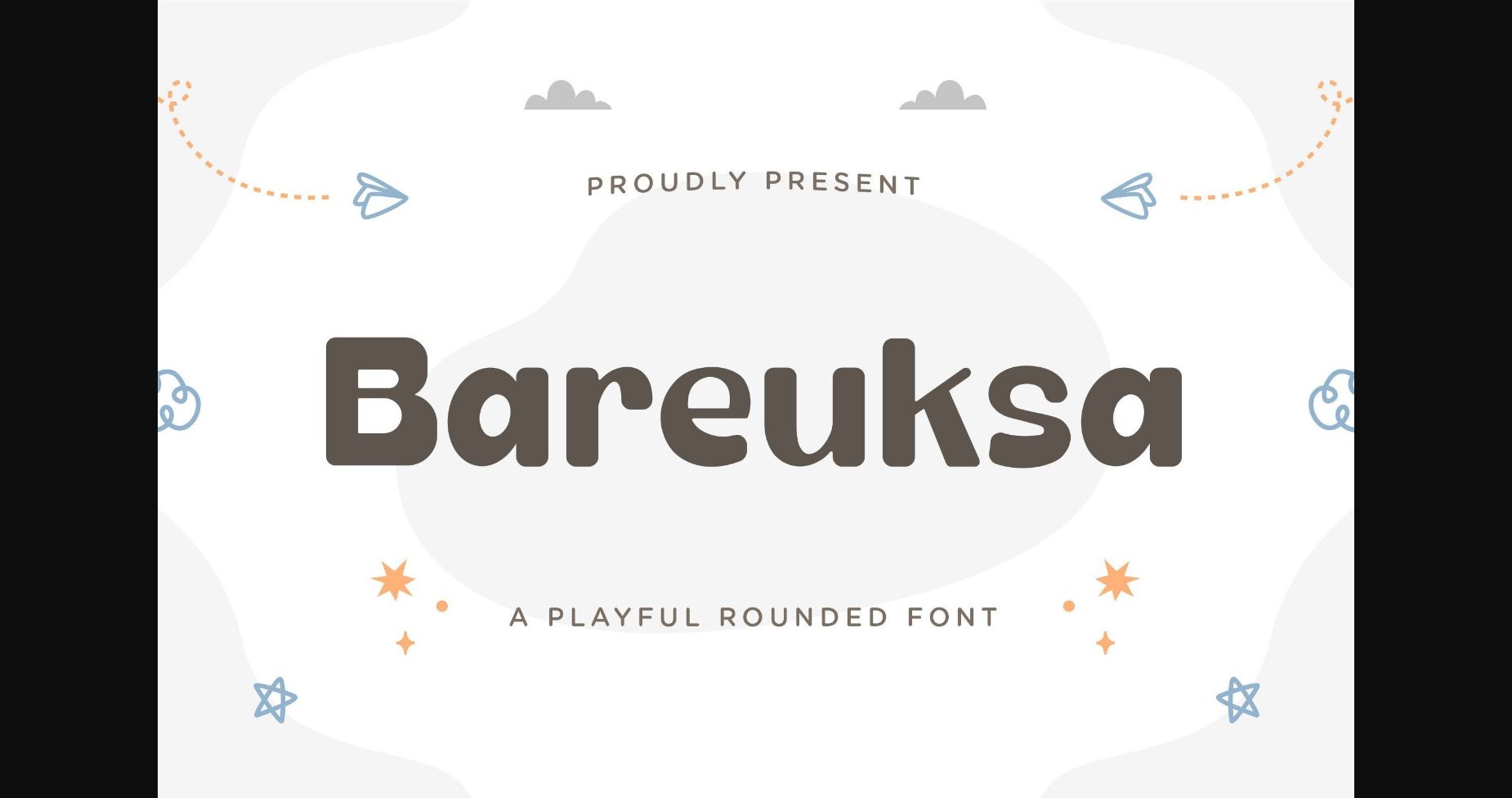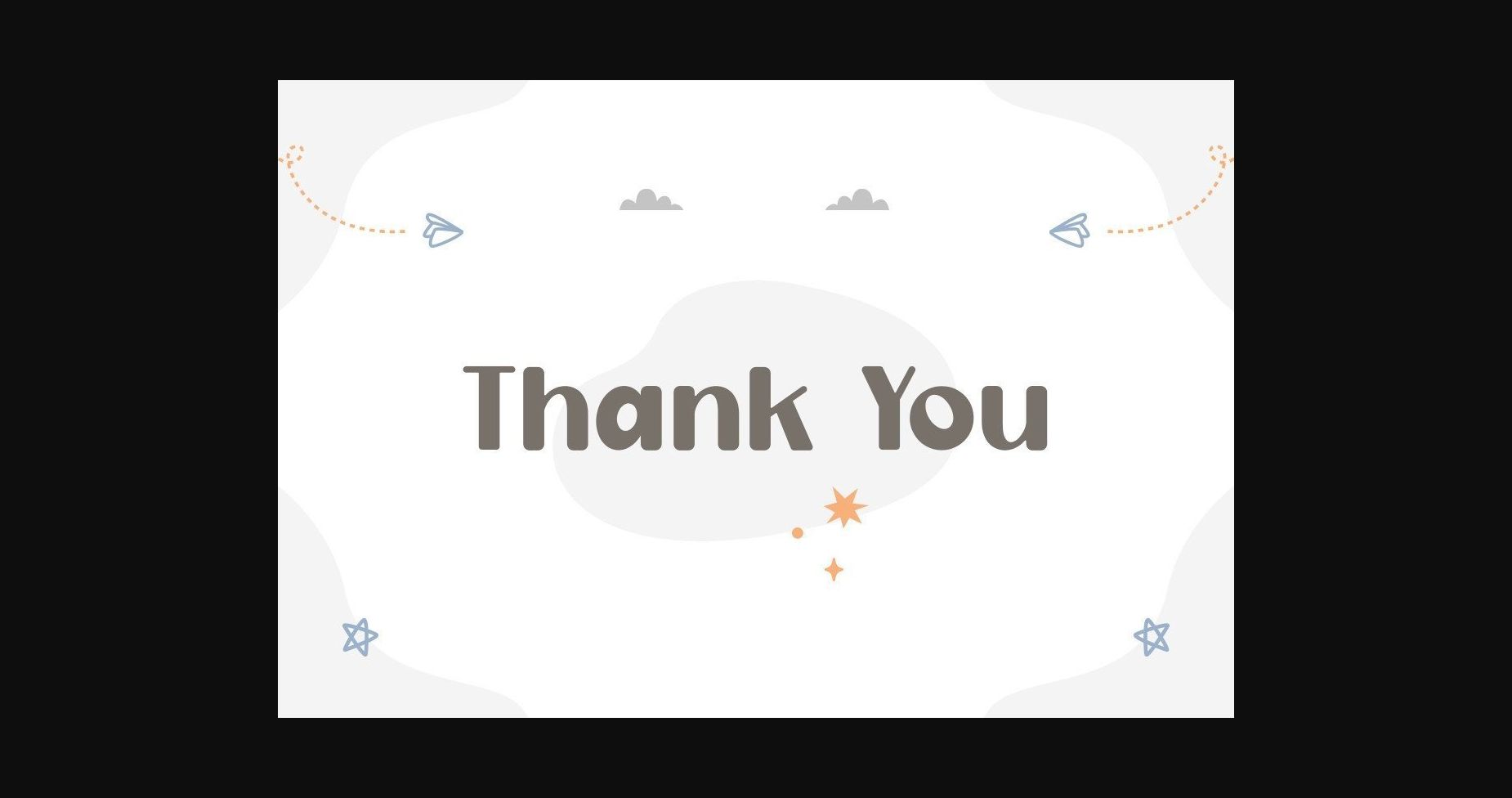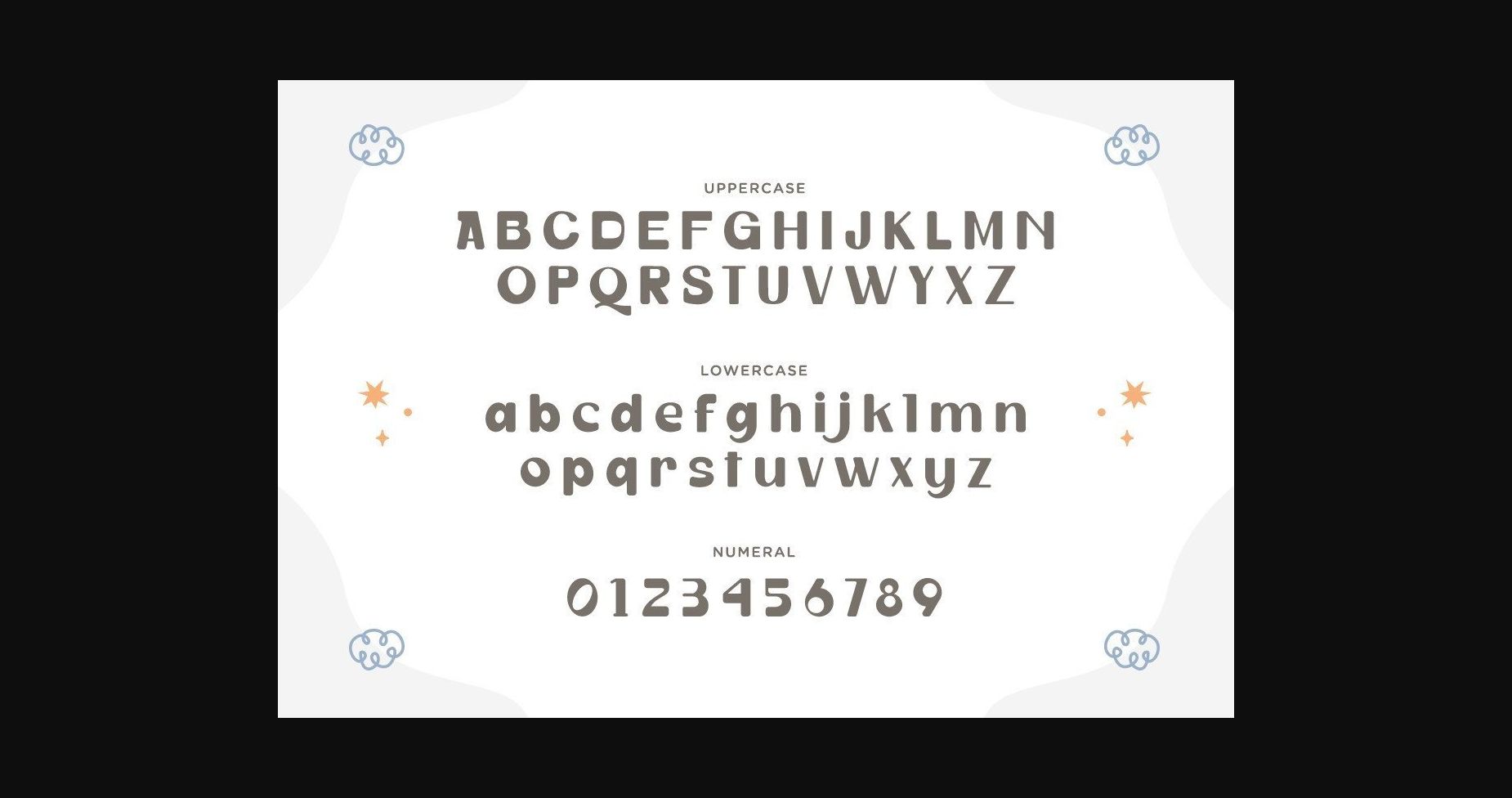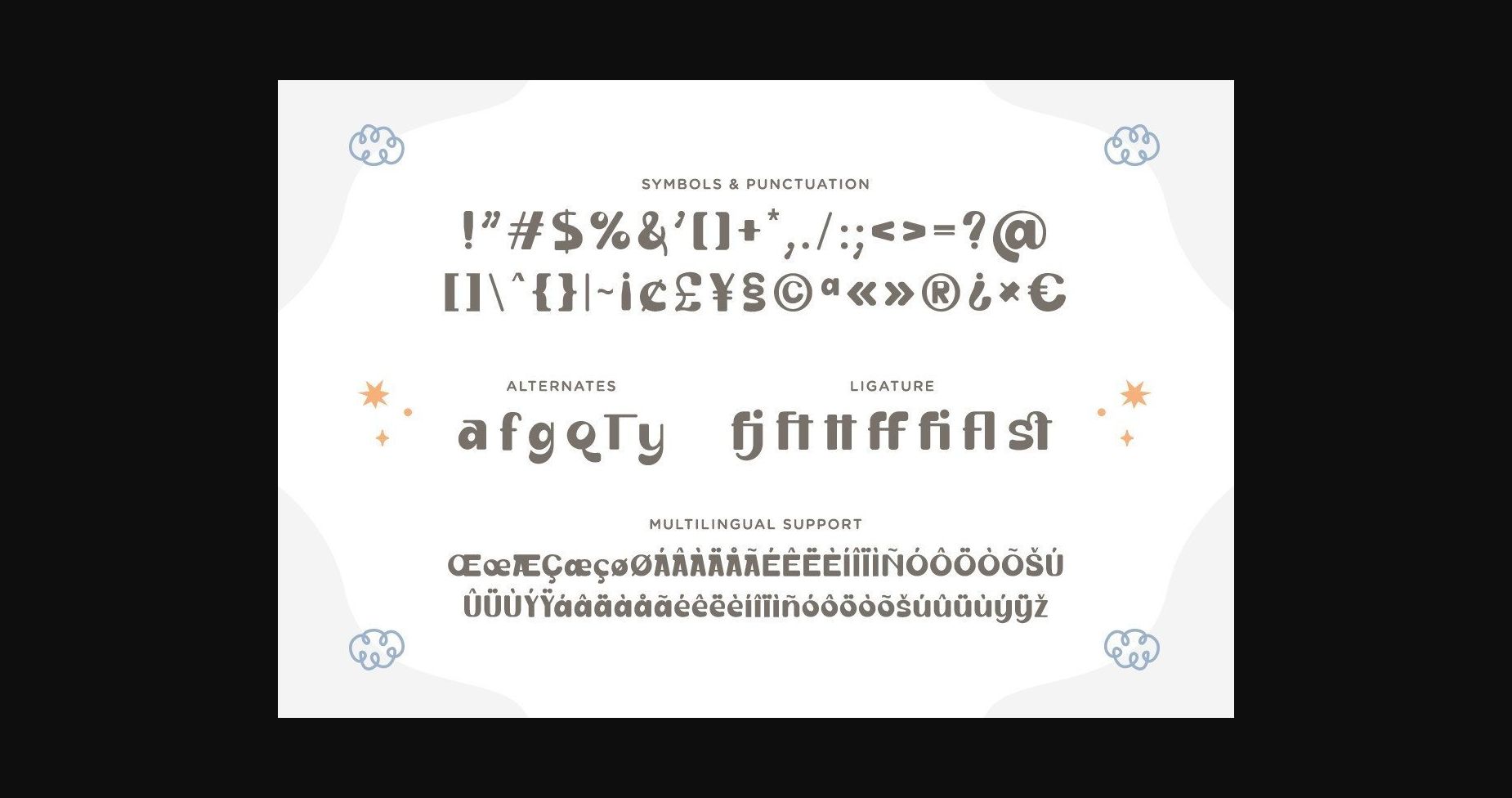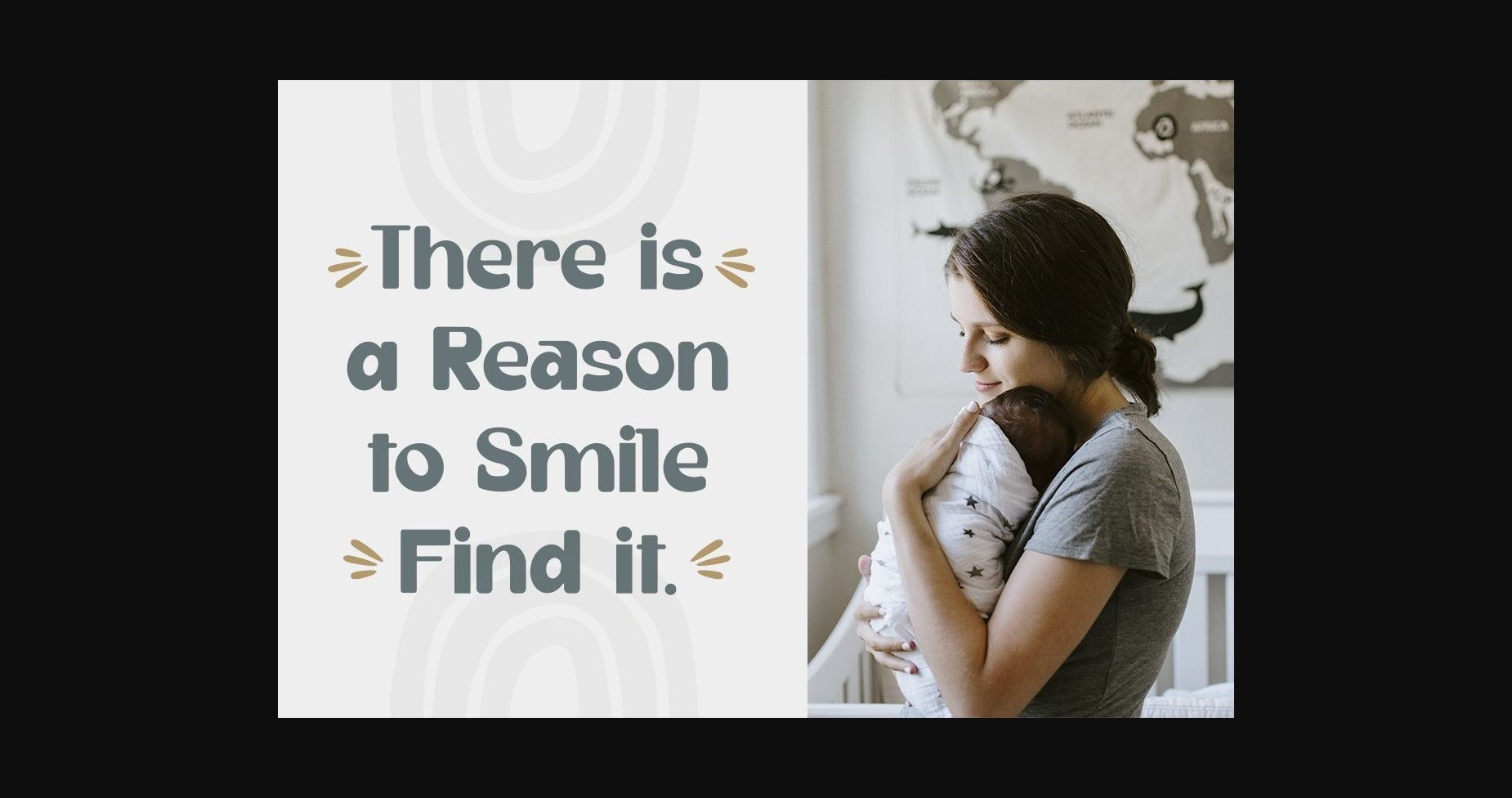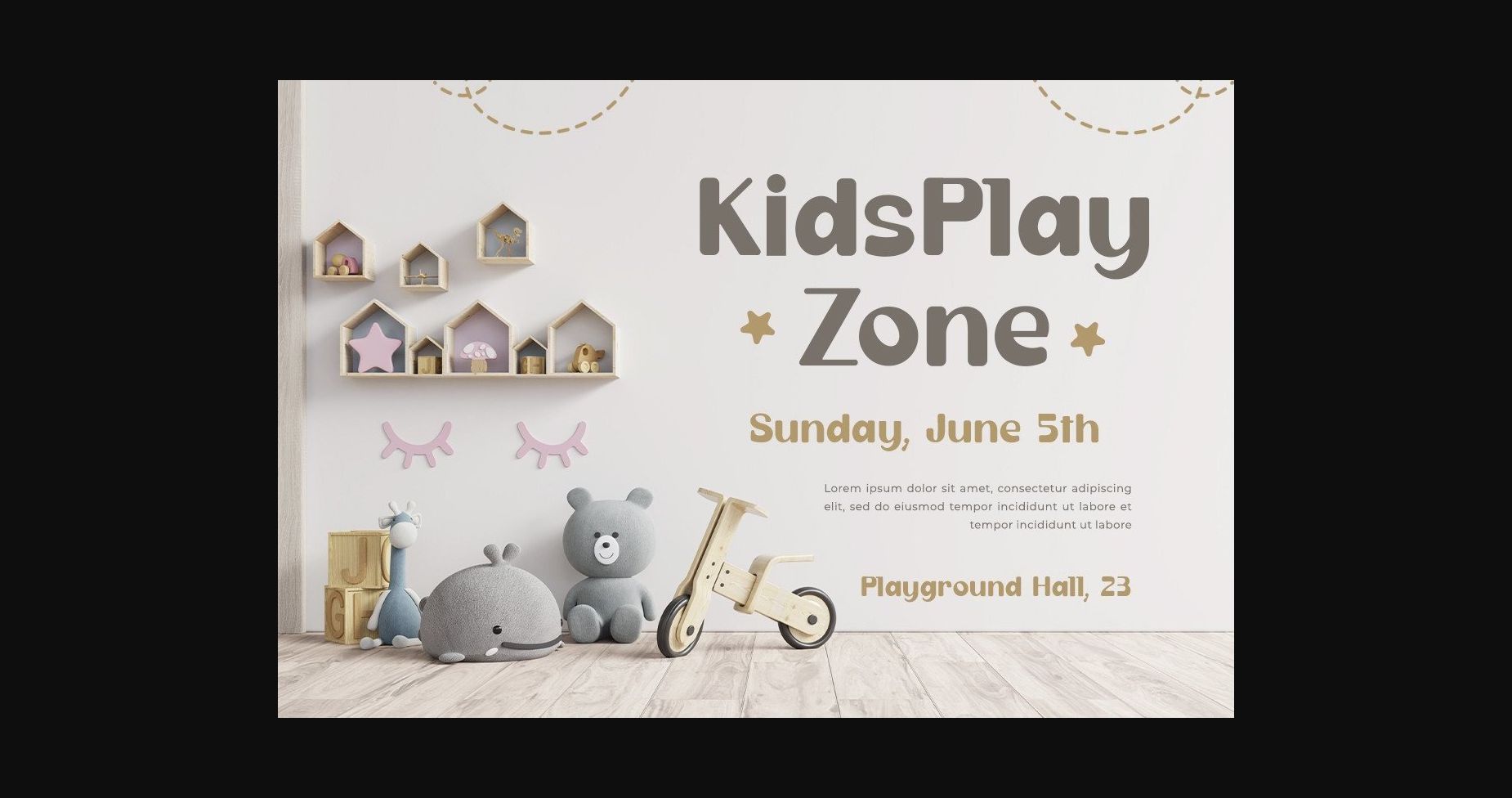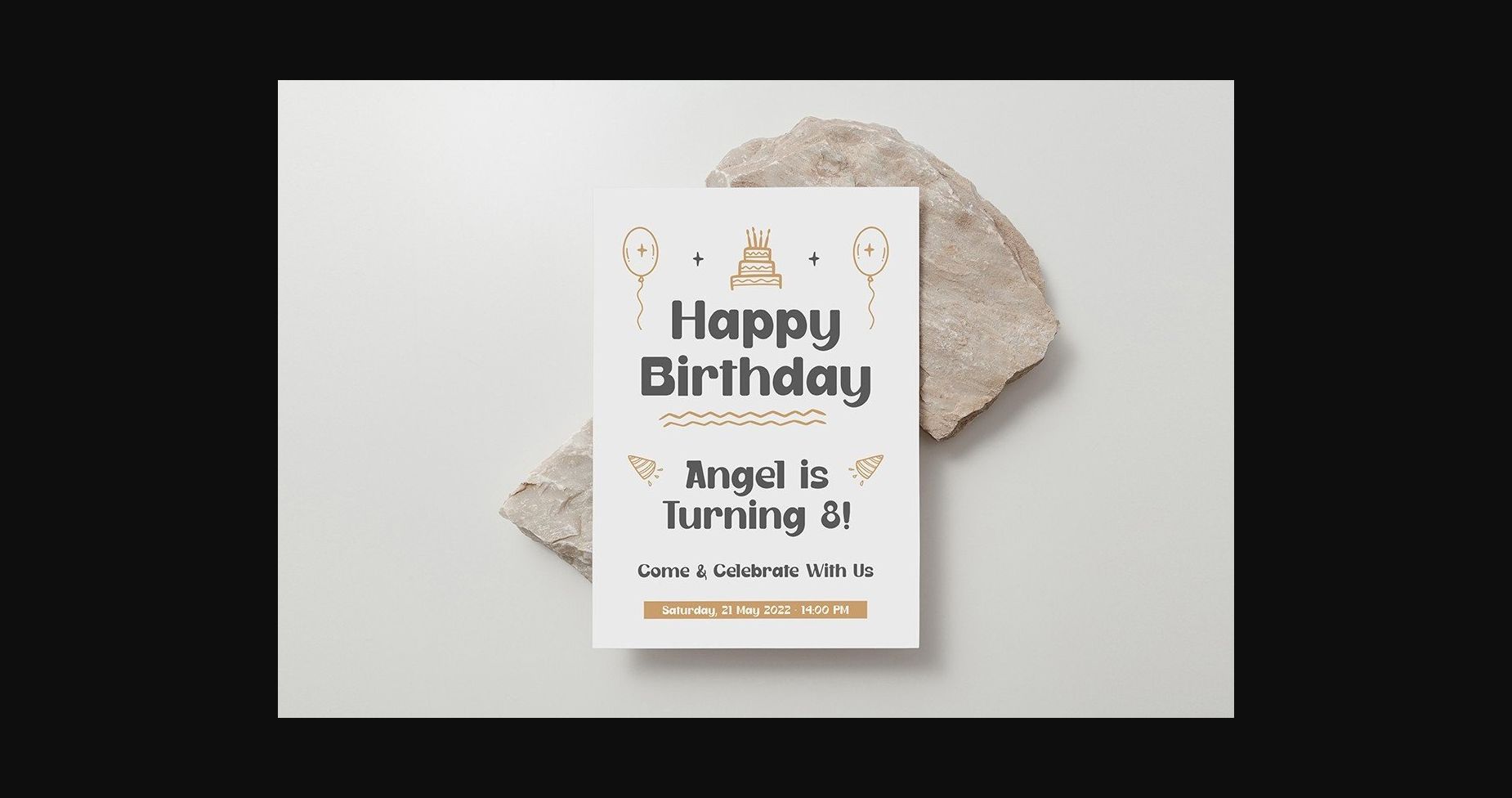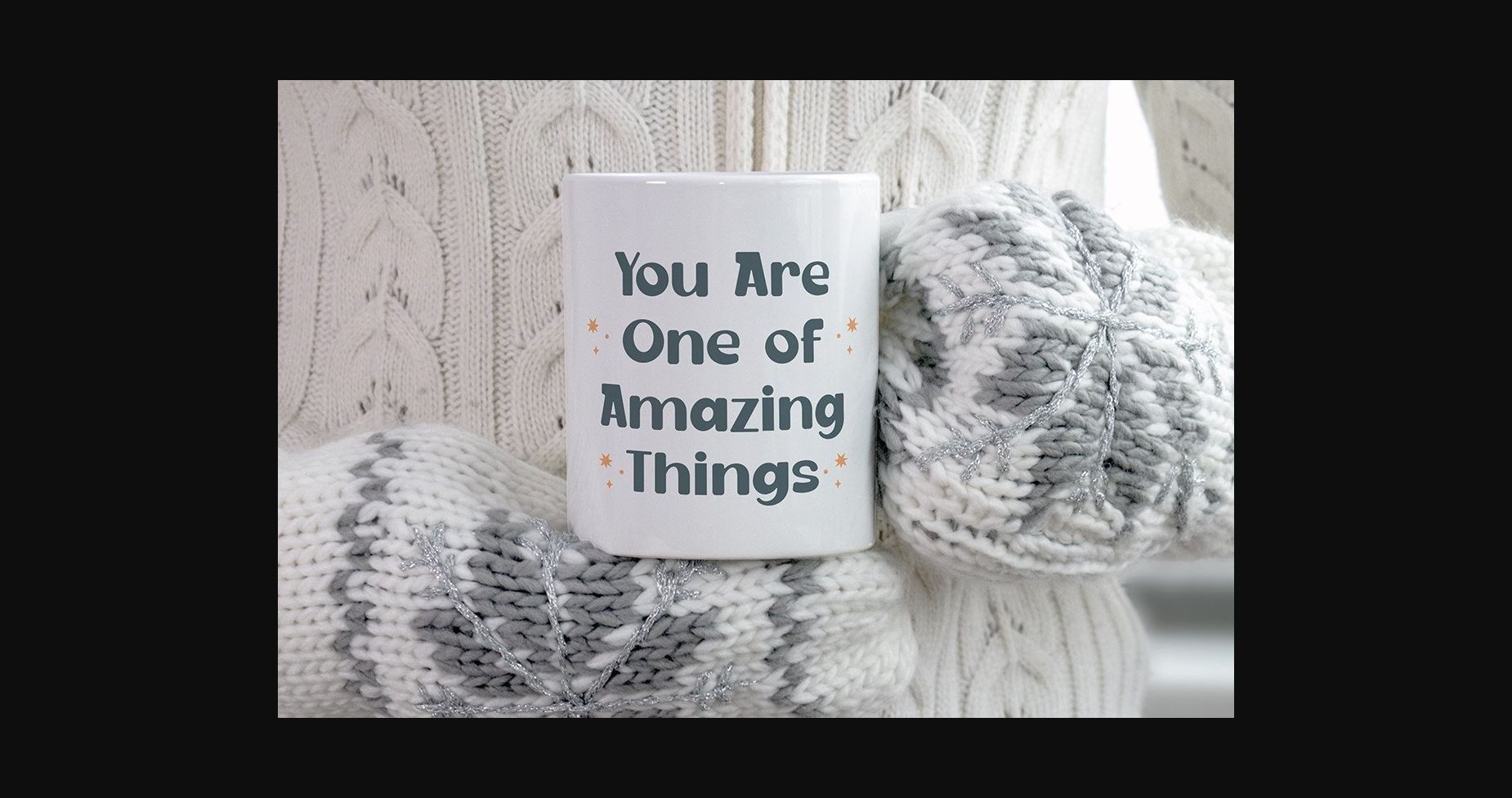
Bareuksa Font
About Bareuksa Font
Bareuksa is a playful rounded Sans font.
It can easily be matched to an incredibly large set of projects, so add it to your creative ideas and notice how it makes them stand out!